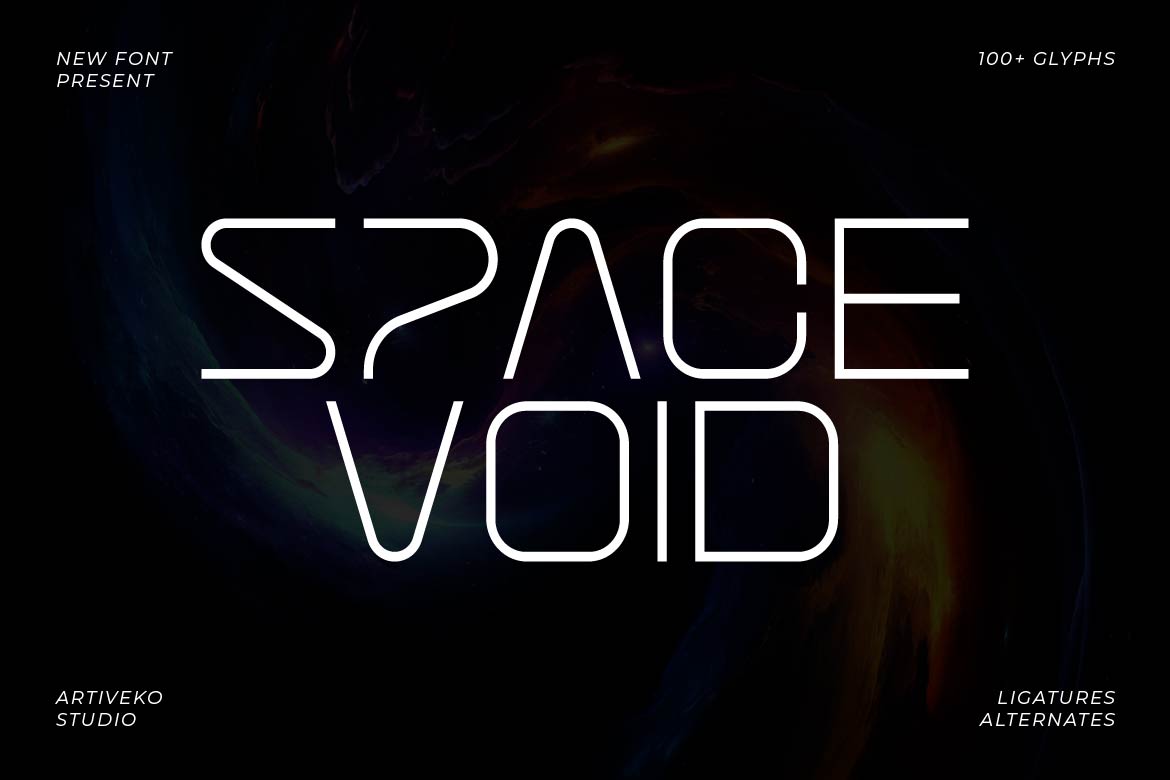
Space Void – Minimal Technology Typeface for Space Age Branding
Space Void is a minimalist modern technology sans serif typeface inspired by futuristic interfaces, cosmic exploration, and advanced digital systems. With sleek geometry, precise proportions, and a clean space-age aesthetic, Space Void delivers a sharp and innovative visual identity for forward-thinking design.
Perfect for technology branding, AI platforms, gaming visuals, apps, UI/UX systems, websites, sci-fi posters, and startup projects, Space Void combines clarity with futuristic sophistication. Its minimal structure ensures readability while its cosmic-inspired style creates a powerful sense of innovation and next-generation design.
Whether you’re designing for digital products, cyber concepts, or futuristic branding, Space Void offers a refined typographic system built for tomorrow.
Space Void is not just a font — it’s the language of future design.